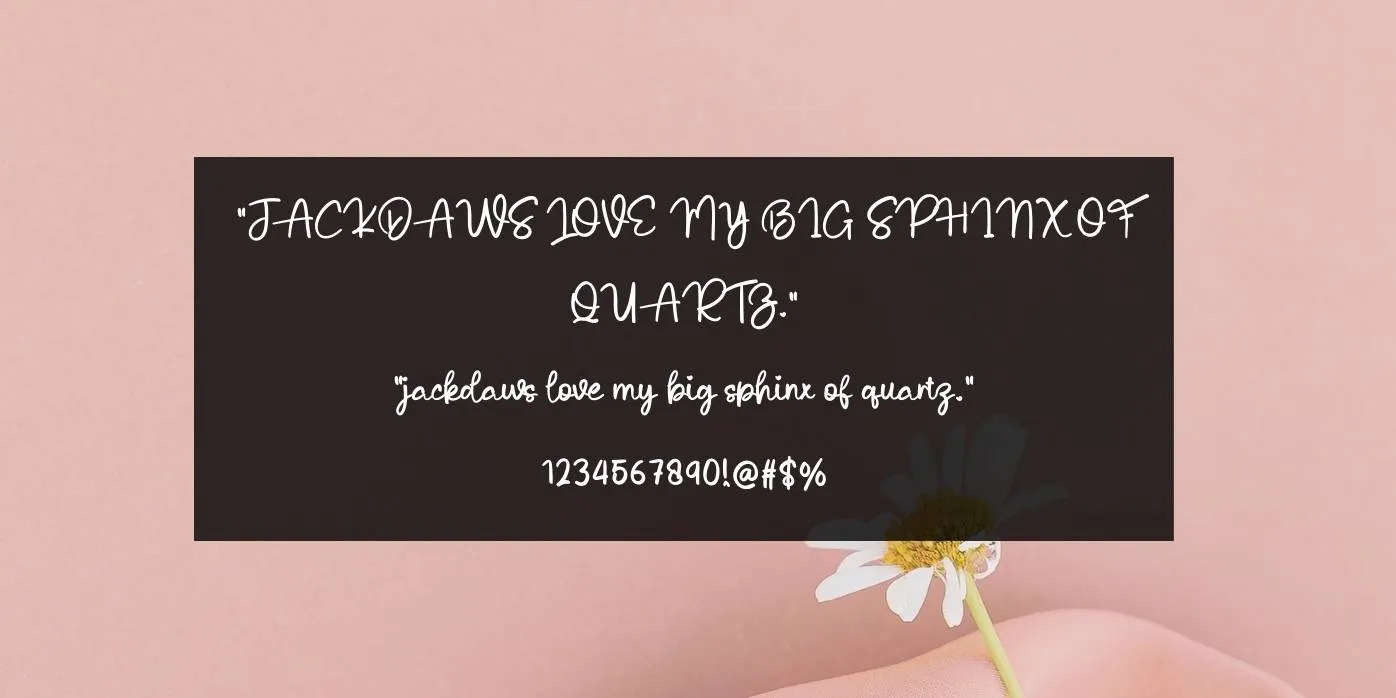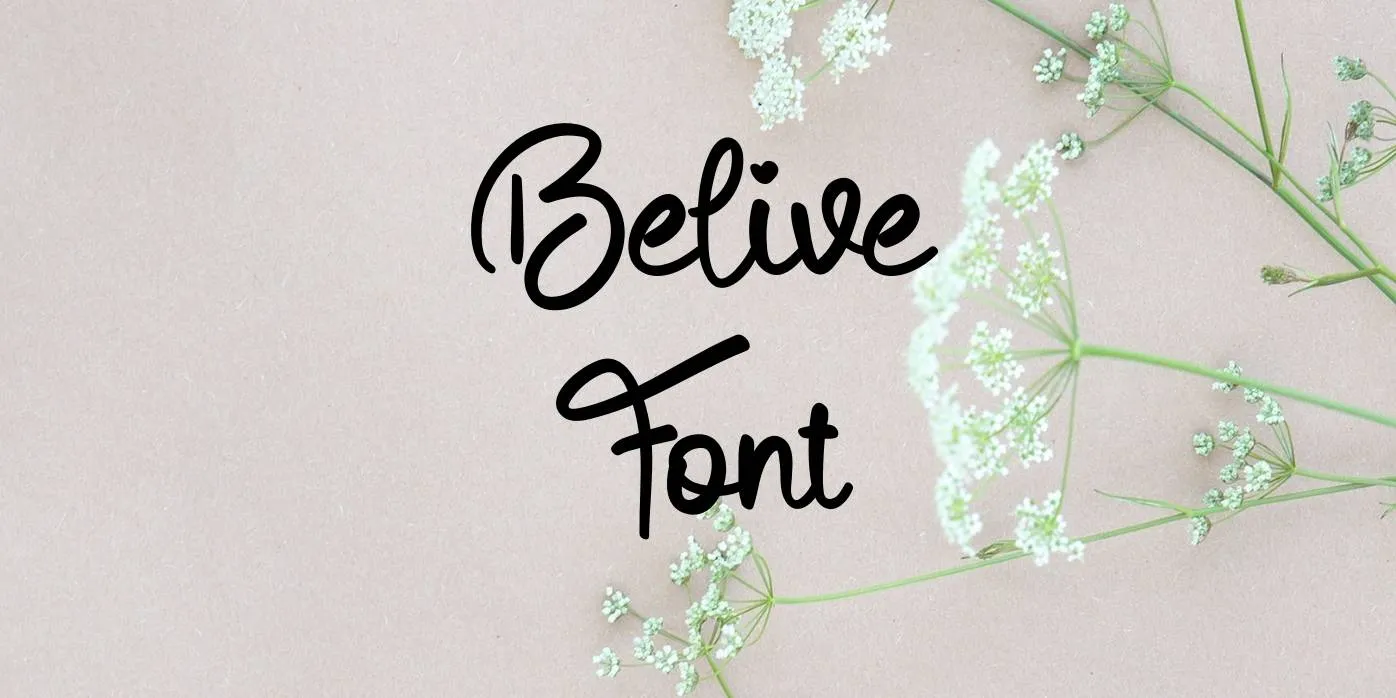
Belive Font
Here, we are going to present a tremendous typeface named Belive Font. This family belongs to the handwritten style. It has come only in a single regular weight. This particular tool has containing upper & lowercase letters, numbers, and some punctuation marks as well.